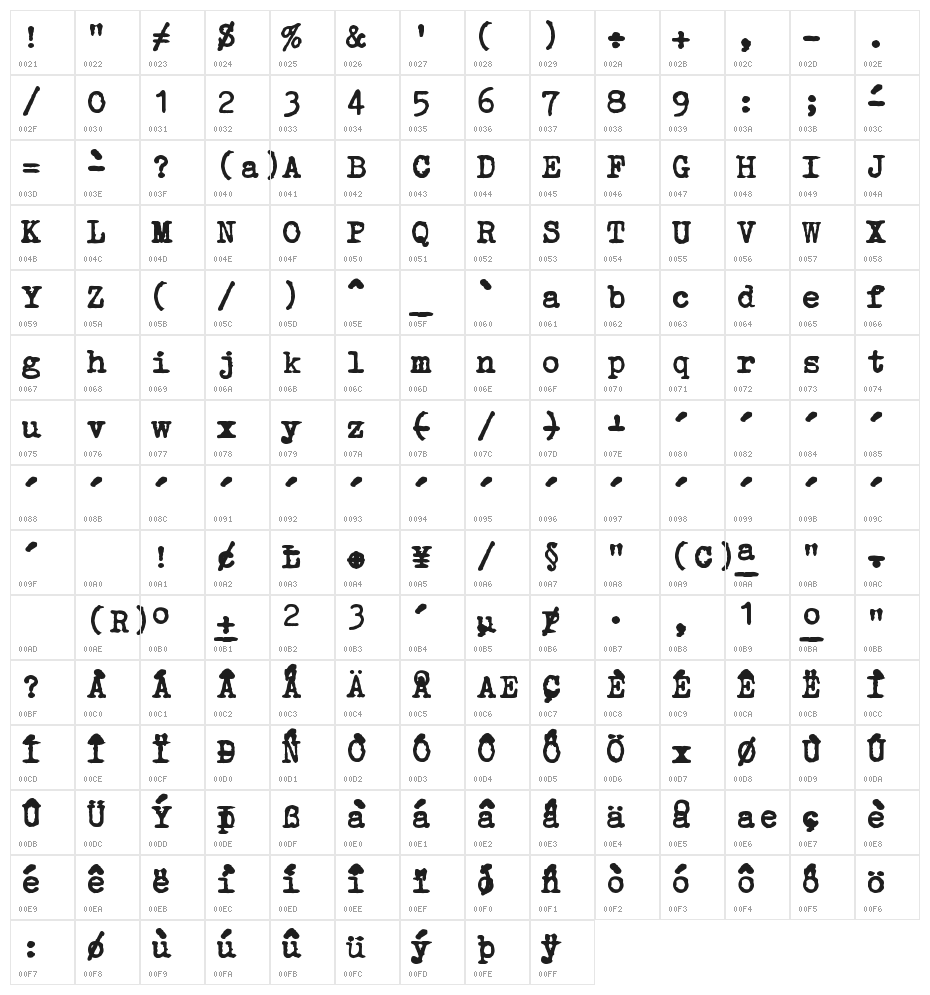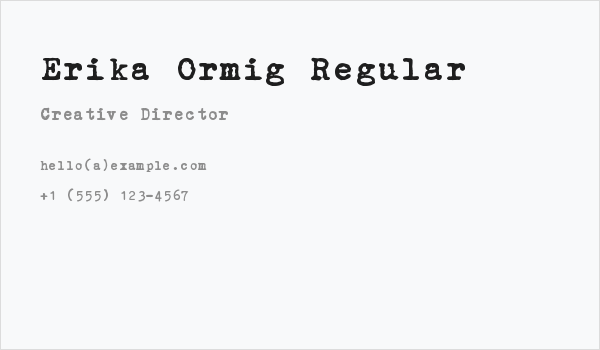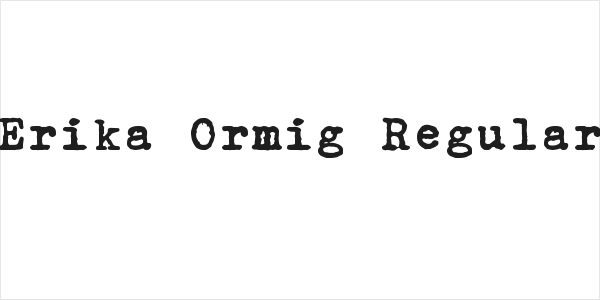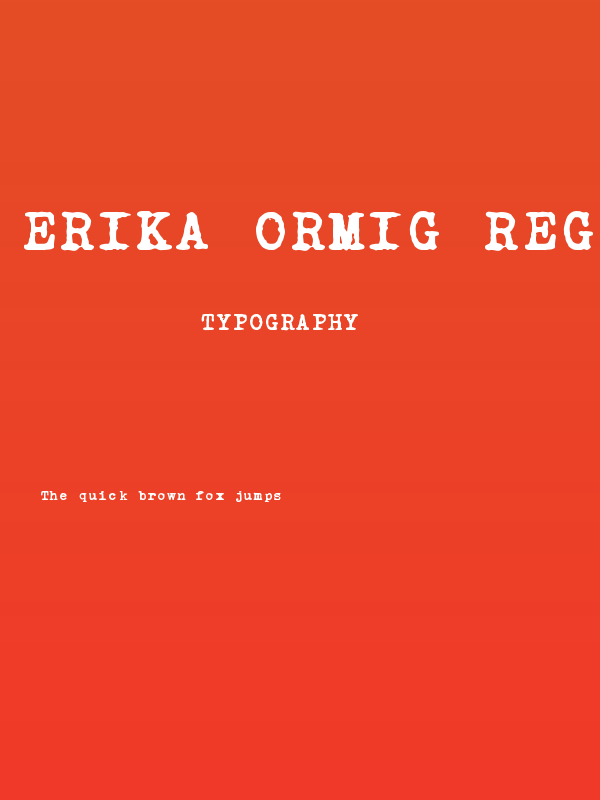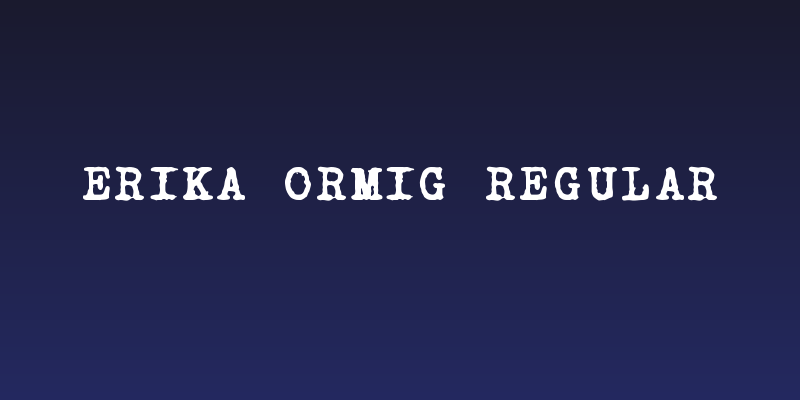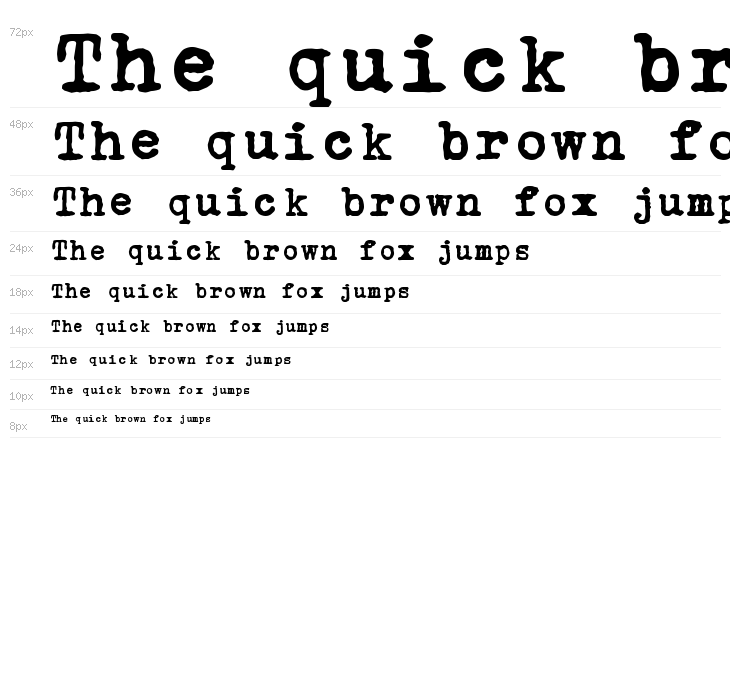
Erika Ormig Regular Font
Erika Ormig Regular Description
This font features a bold, distressed style with a vintage typewriter aesthetic. The characters have a rough, textured appearance, giving them a unique, handcrafted feel. The uppercase and lowercase letters maintain consistent proportions, while the numbers and special characters complement the overall design. This font's irregular edges and bold strokes make it stand out, offering a nostalgic yet modern twist. The spacing between characters is relatively tight, enhancing its compact look. It's perfect for projects that require a touch of retro charm and individuality.